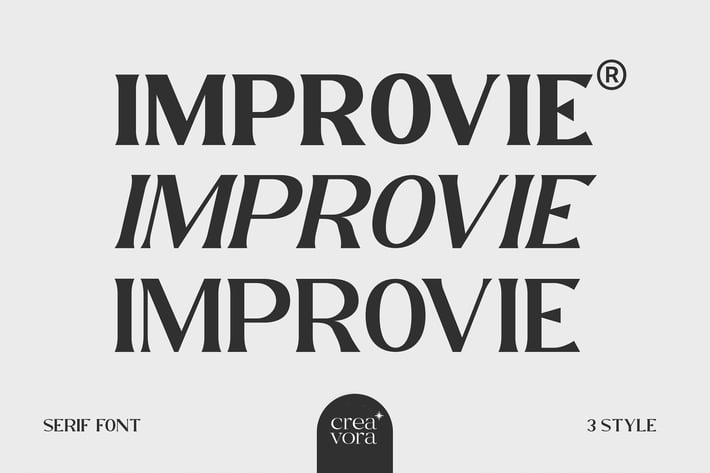
IMPROVIE - Bold Serif Font
IMPROVIE - Bold Serif Font.
Improvie is designed to reflect industrial, it creates a sense of firmness and consistency. The concept was pushed in a usability-focused direction, to work as a bold tool and a beautiful communicator.
Essence Improvie allows fluid design in three styles, supports all major Latin-based languages. All three fonts are properly aligned enhancing aesthetics, bringing energy, and making them suitable for modern applications.
All three fonts blend organic curves and gentle repetition into a strong, harmonious type. This font is based on thickness and high contrast for clear legibility when it is used in logos and titles.
- Uppercase Characters
- Lowercase Characters
- Punctuation, Numerical
- 3 Styles
- Multilingual support for various languages including: French, German, Spanish, Portuguese, Italian, Dutch, Finnish, Swedish, and more.